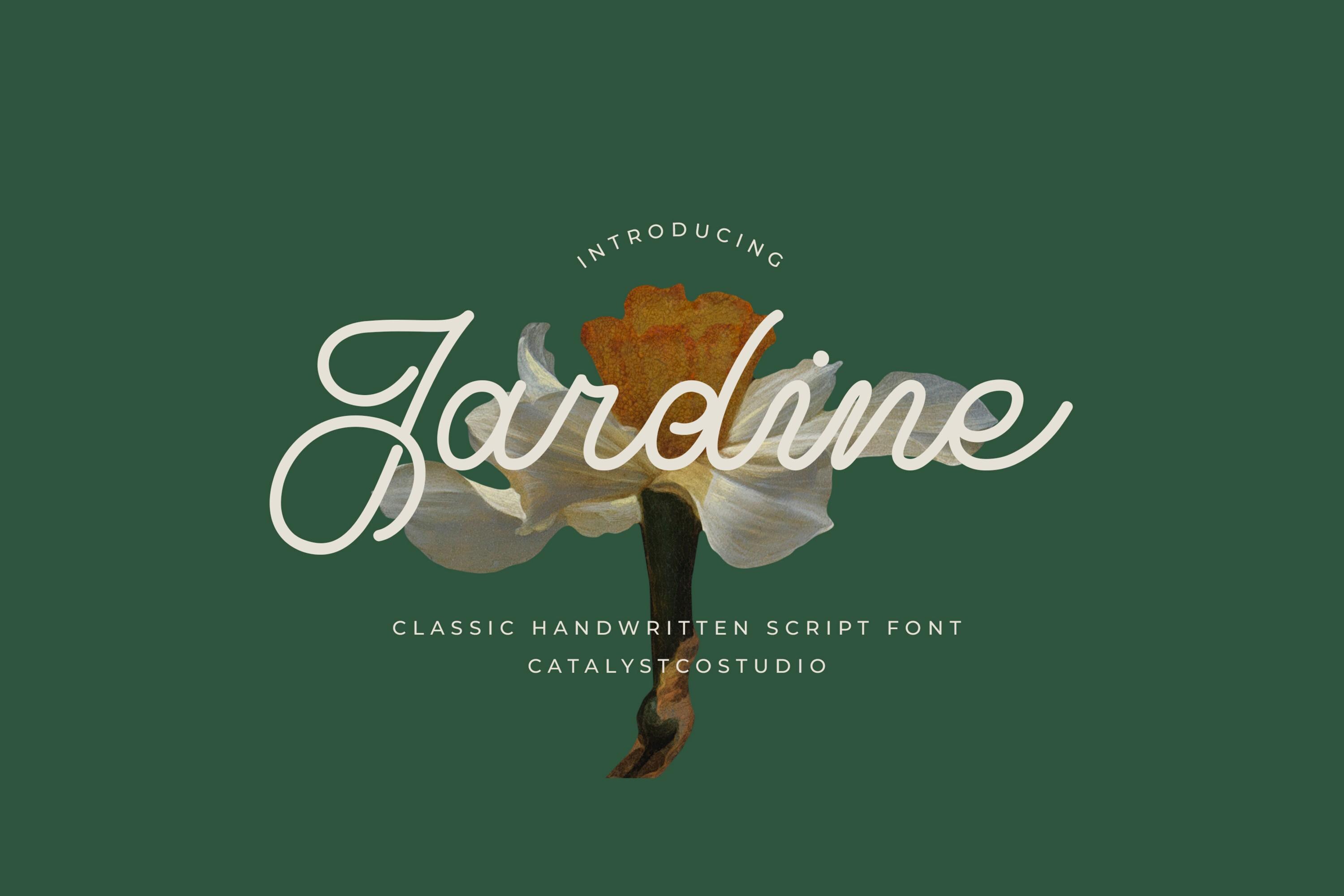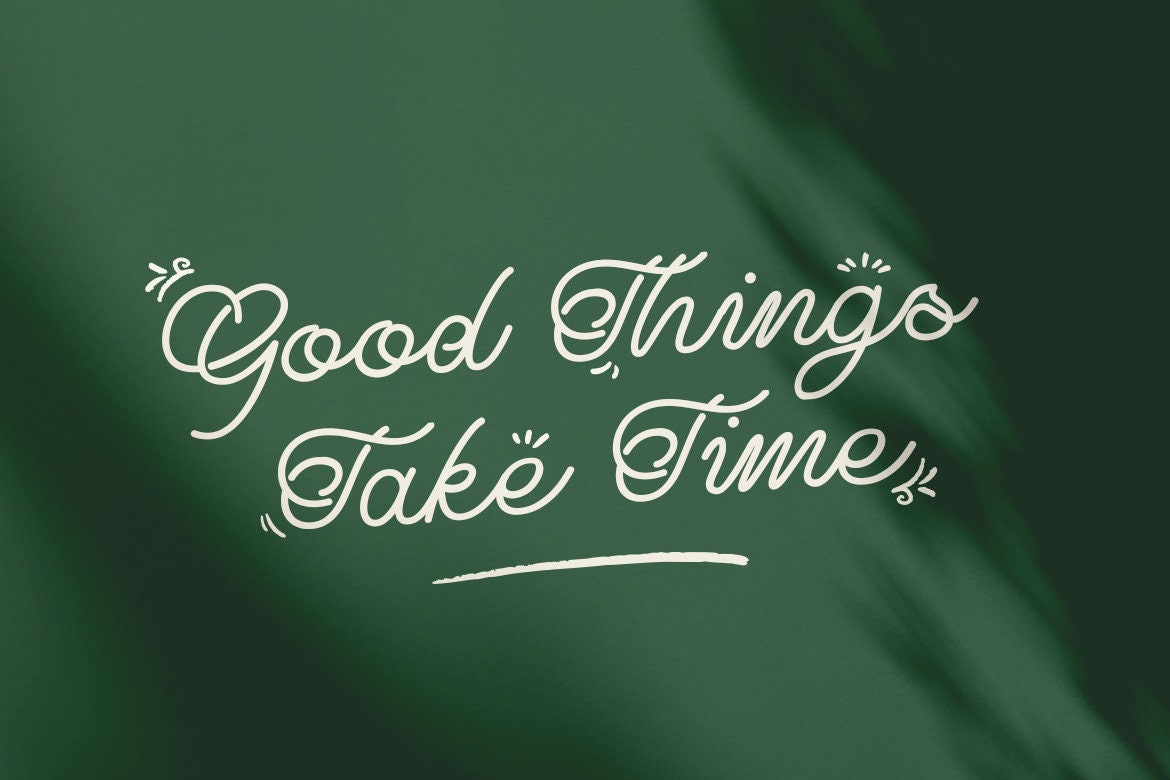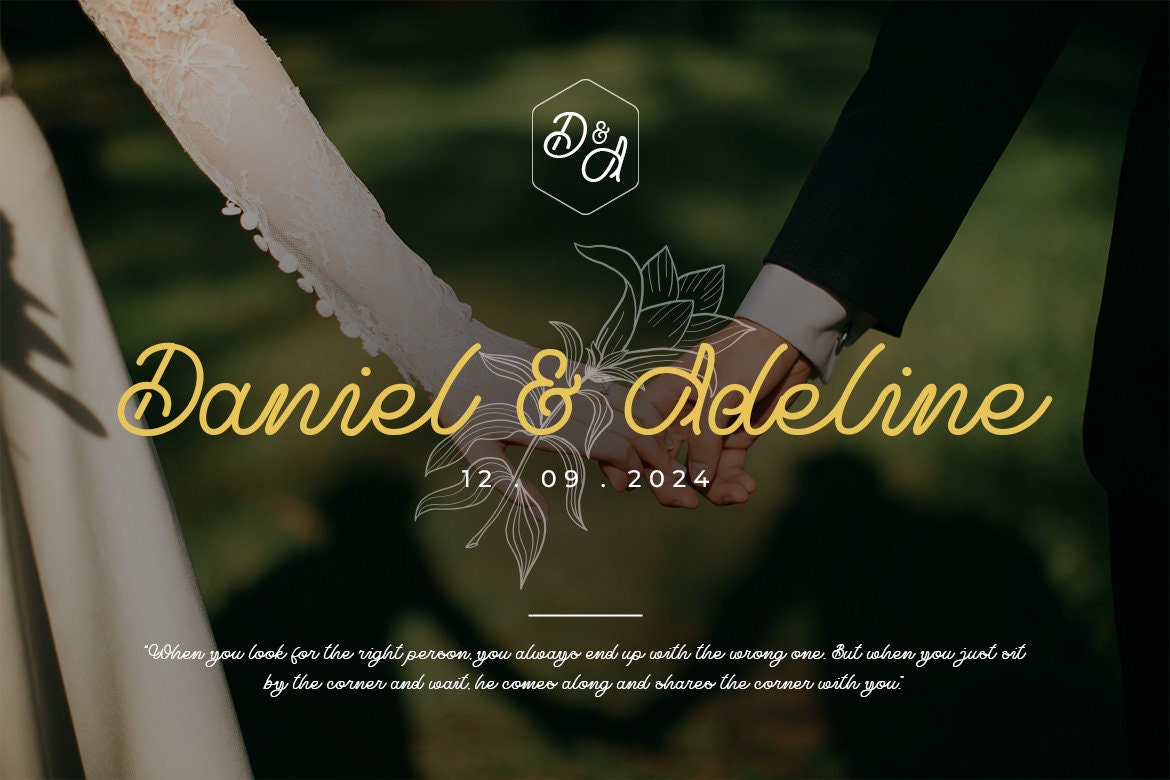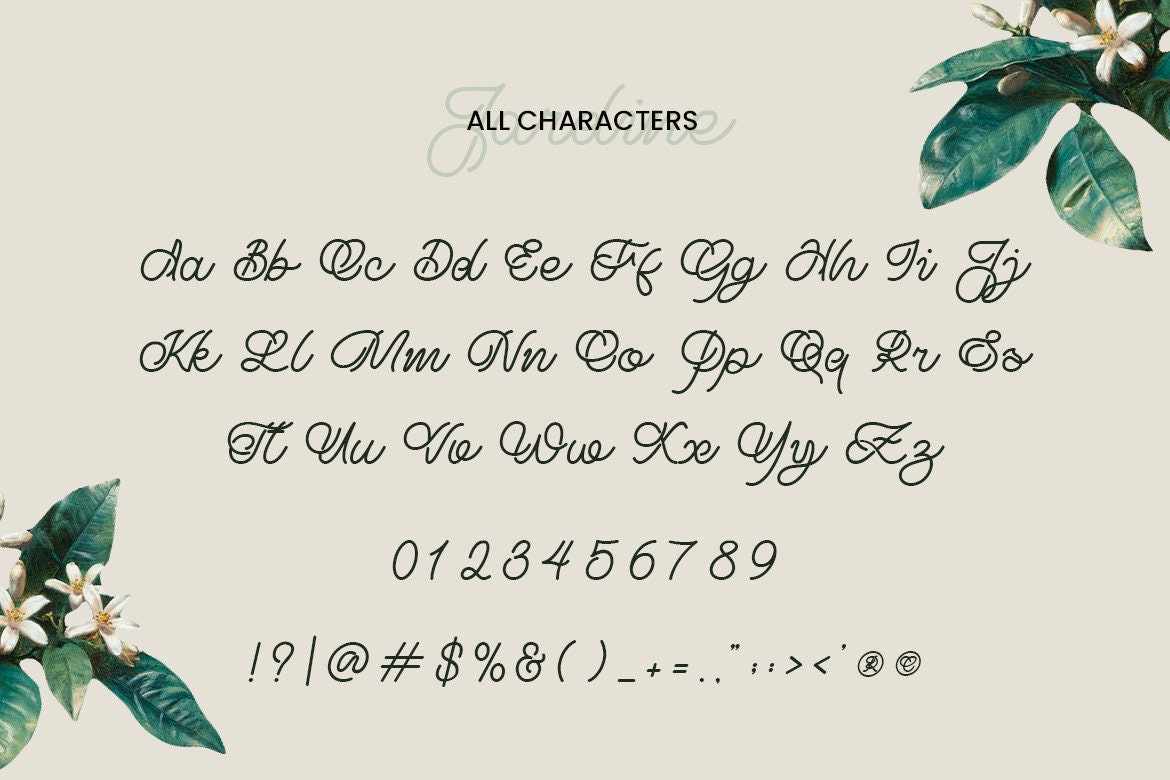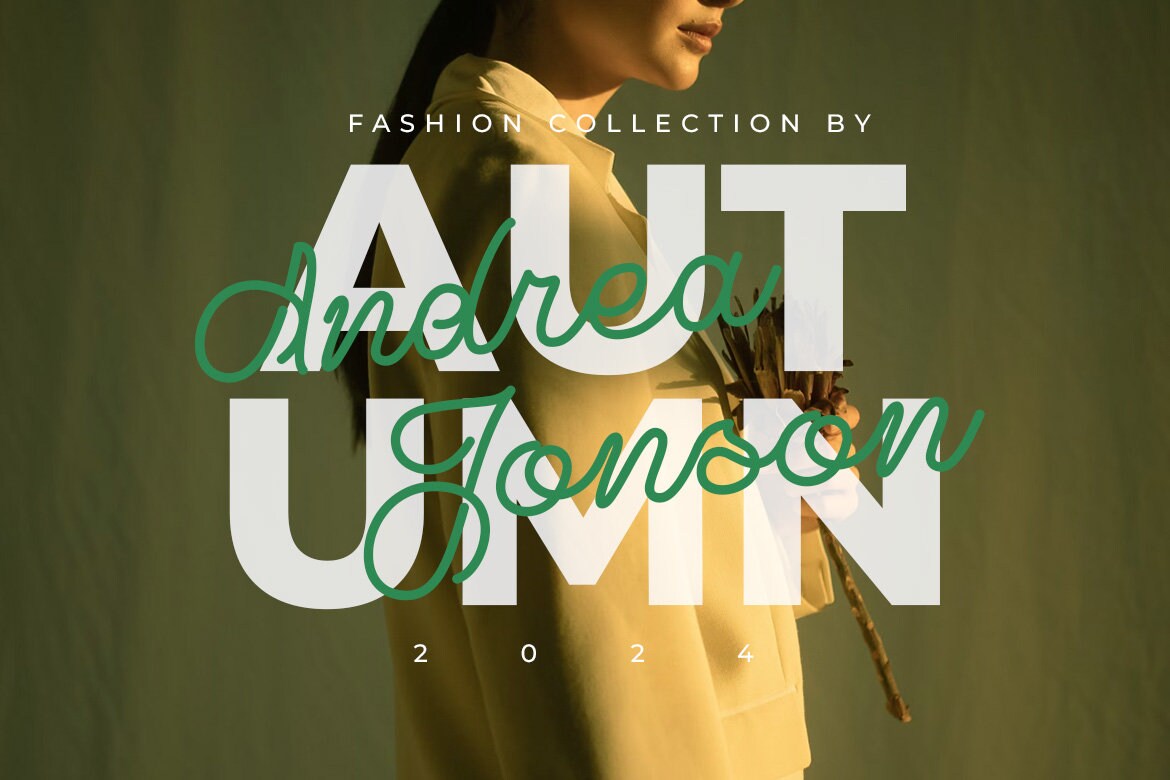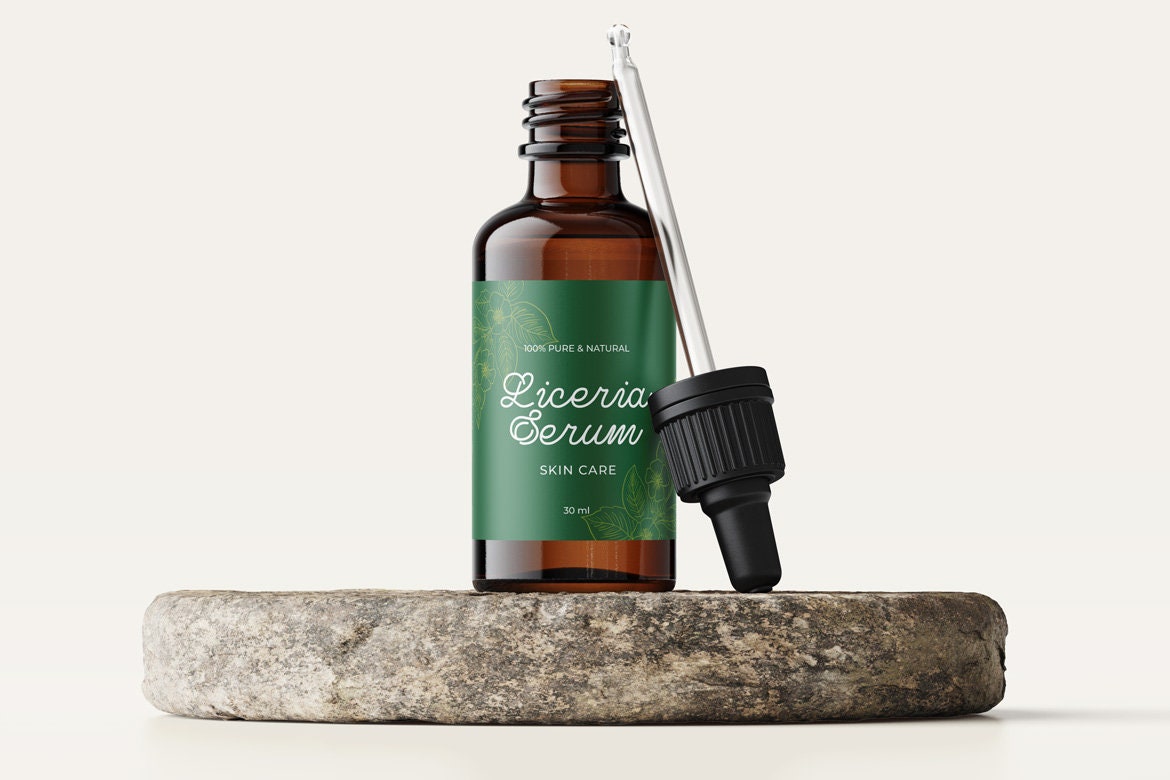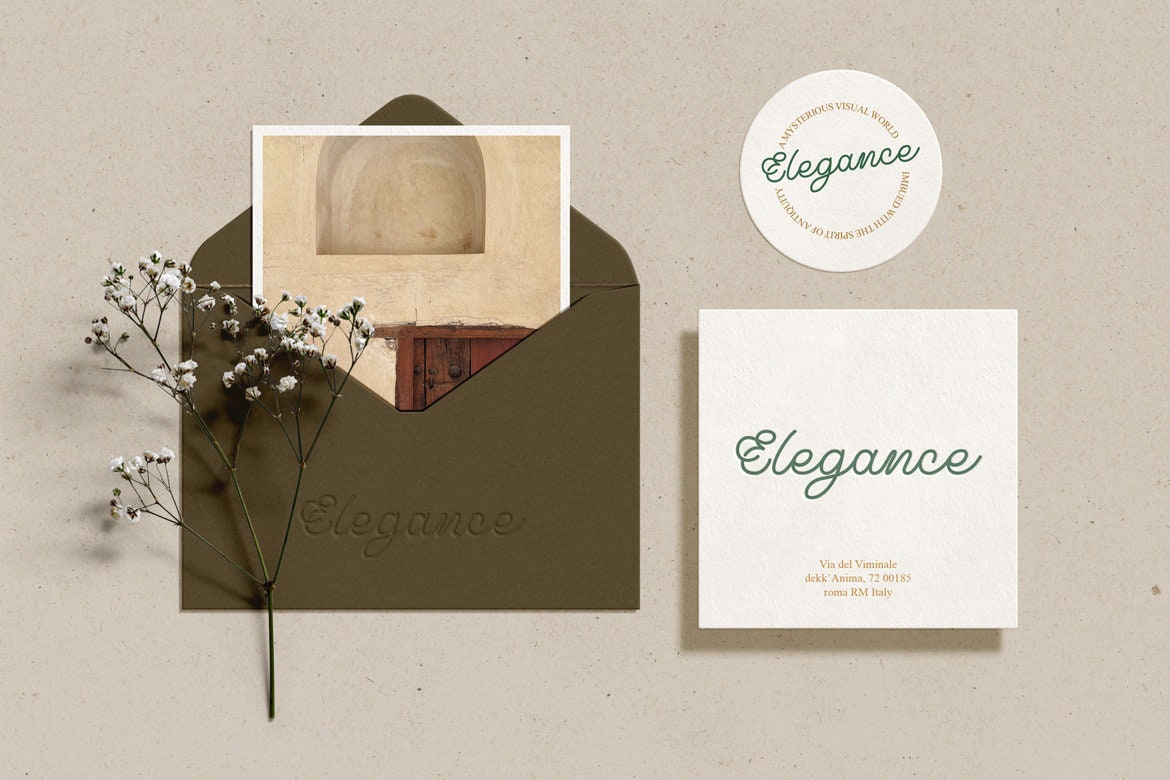
Introducing our new "Jardine" Script Font, boasting an Elegant Style, perfect for branding, logos, master heads, and myriad other applications.
Elevate your designs with the Jardine - Script Font Collection! This exquisite set offers a variety of elegant script fonts designed to add a touch of sophistication to your projects. Whether you're creating wedding invitations, crafting branding materials, or designing greeting cards, the Jardine fonts provide the perfect blend of beauty and grace. With flowing strokes and delicate curves, these fonts will bring an air of elegance to any design. Download now and bring your creative visions to life with the timeless beauty of Jardine!
Features :
- Multilingual
- Uppercase alphabet A-Z
- Lowercase alphabet a-z
- Alternate Character
- Numbers 0-9
- Some punctuation